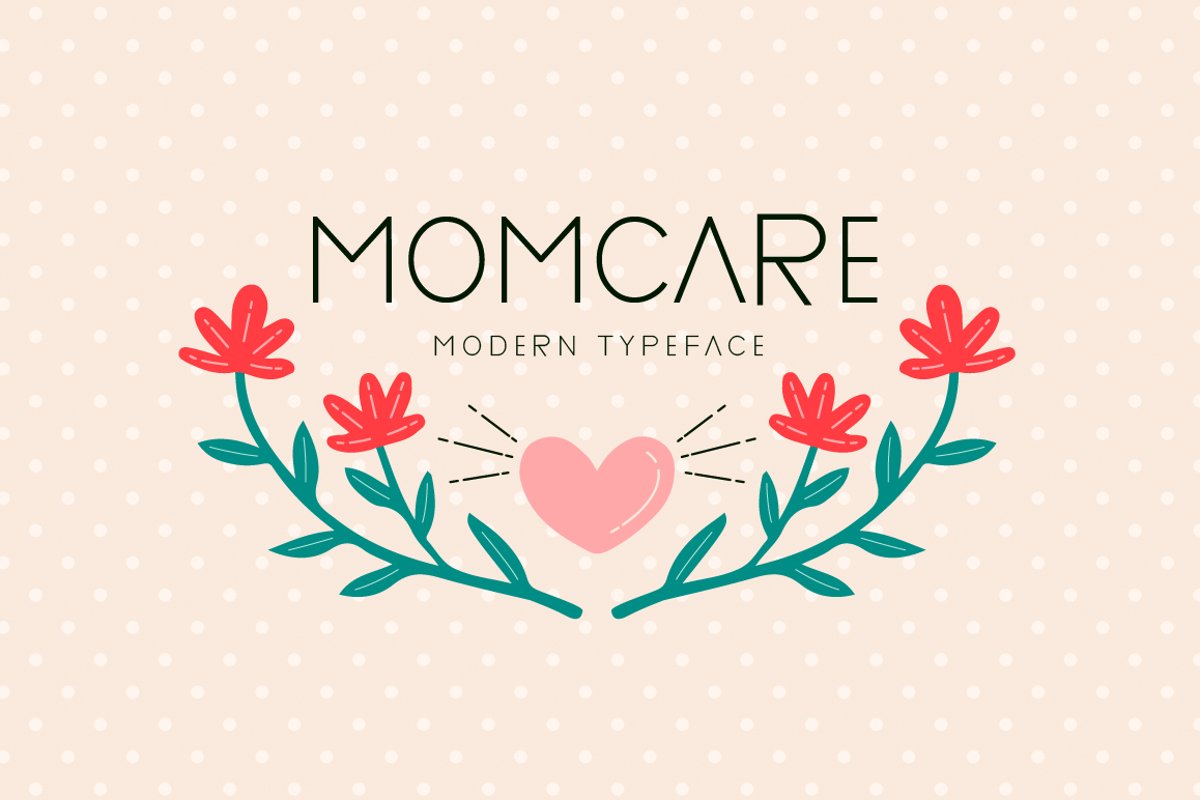
Introducing Momcare!
Momcare is a brand new modern font. Momcare is perfectly suited for stationery, logos, t-shirt, paper, print design, website header, photo frame, flyer, music cover, poster, image slider and much more.